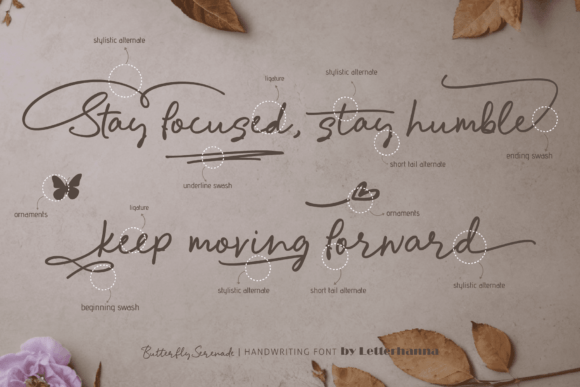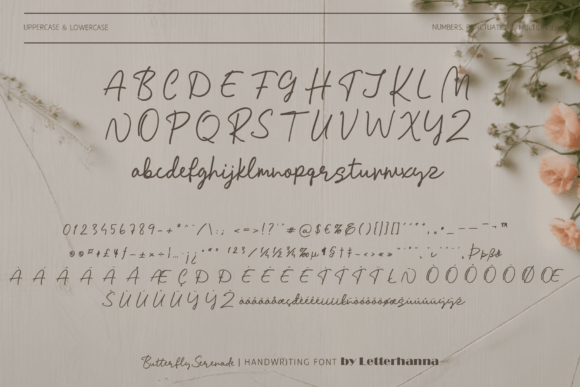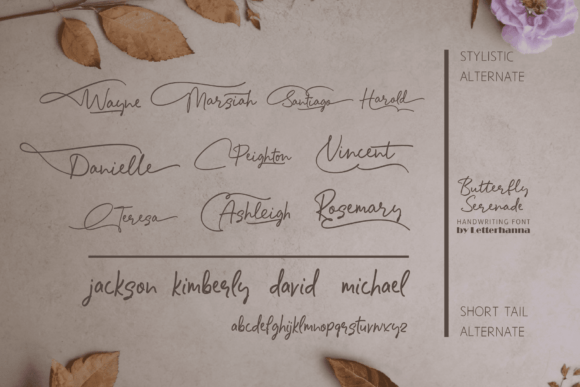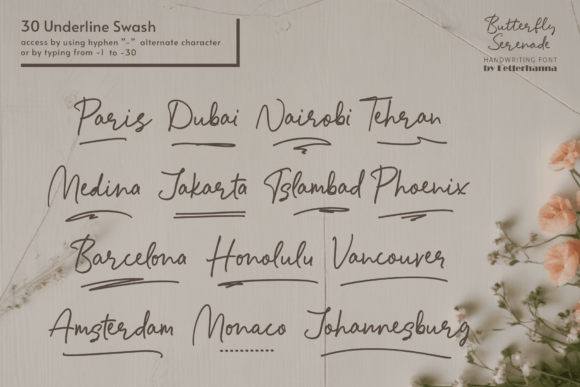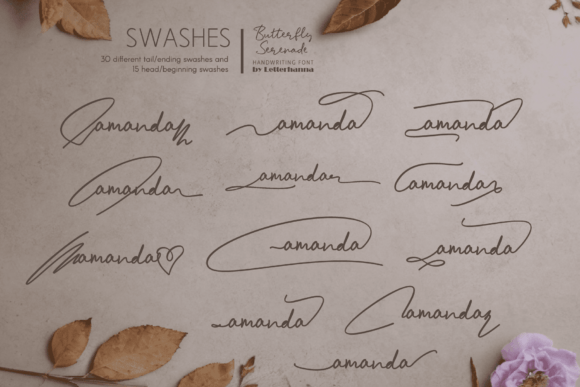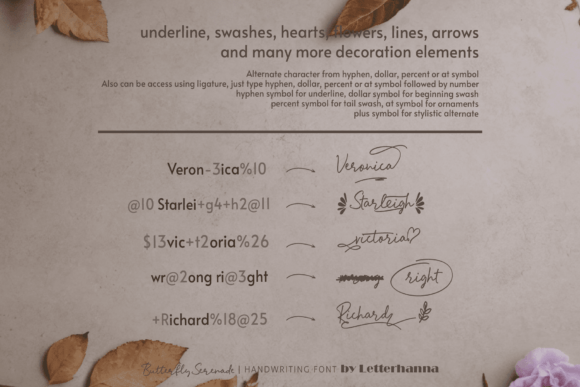
Discover the Delight of Butterfly Serenade Font
Have you ever sat in a lush garden on a warm summer day, watching as butterflies flit from flower to flower, their delicate wings shimmering in the sunlight? It’s a moment of pure enchantment, and one that can spark a world of creativity. For designers, it’s moments like these that inspire us to create something truly special.
Enter the Butterfly Serenade Font, a beautiful handwriting script font that captures the carefree spirit of a butterfly’s dance. With its delicate loops and playful flourishes, this font is perfect for adding a touch of whimsy to invitations, greeting cards, or branding that’s sure to stand out. Whether you’re looking to add some elegance or imagination to your designs, the Butterfly Serenade Font is the perfect choice.
Butterfly Serenade Font Key Features
- Font Family: Butterfly Serenade Font is a beautiful, elegant script font designed to evoke a sense of romance and whimsy.
- Size: The font comes in 2 versions: Regular and Alternate. The Regular version is suitable for body text, while the Alternate version adds a touch of uniqueness for headlines and titles.
- Unique Characteristics: Butterfly Serenade Font features beautiful, flowing connections between letters, giving it a natural, handwritten feel. The font also includes a wide range of ligatures and swashes to enhance its elegance and sophistication.
Butterfly Serenade Font Review
Overall, I think the Butterfly Serenade Font is a beautiful and elegant addition to any design project. ✨ The flowing, whimsical lines and organic feel make it perfect for creating a sense of romance and sophistication. I’ve used it for a wedding invitation design and it added a lovely touch of whimsy.
The font’s versatility is another major plus. ✨ It can be used for a wide range of projects, from children’s books to fine art prints, and it’s sure to add a unique touch to any design.
- Beautiful, flowing lines
- Organic feel
- Versatility in design applications
- Some characters may not be as detailed or clear as others
- May be challenging to read in smaller sizes
- Not suitable for body text or long blocks of text
In terms of overall impression, I would say that the Butterfly Serenade Font is a great choice for designers looking to add a touch of elegance and whimsy to their projects. While it may have some limitations, its unique beauty and versatility make it a valuable addition to any design toolbox.
The Butterfly Serenade Font is ideal for:
- Floral-themed designs and illustrations
- Whimsical and feminine branding and marketing materials
To get the most out of the Butterfly Serenade Font, consider the following tips:
- Pair the font with a complementary color scheme to enhance its beauty
- Use the font in combination with illustrations
What is the recommended font size for optimal readability with the Butterfly Serenade Font?
The recommended font size for optimal readability with the Butterfly Serenade Font is between 10pt and 14pt. However, this may vary depending on the specific design application and intended use of the font.